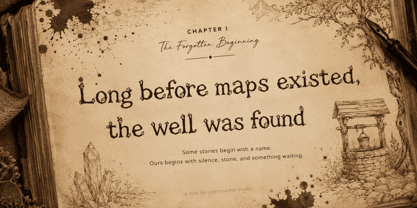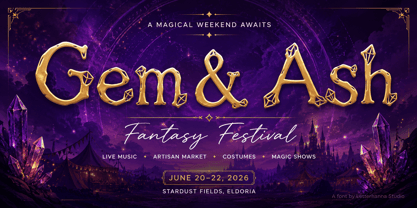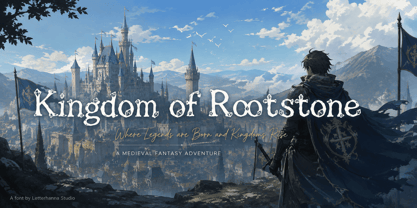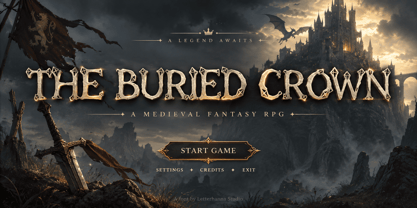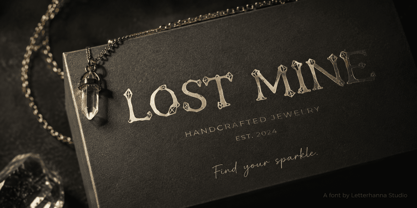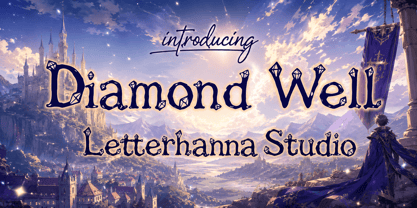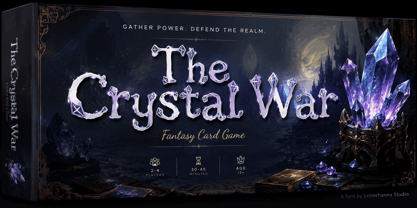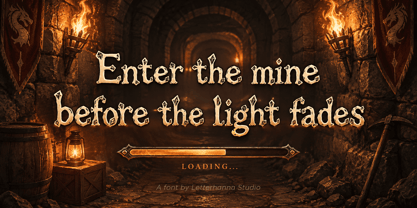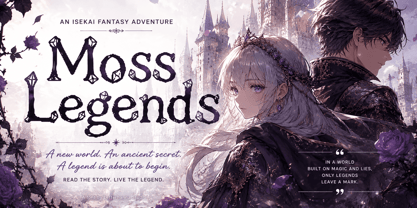
Every designer knows the frustration: you need a fantasy font, but everything available online looks identical — the same swirly serifs, the same generic sparkle clip art. That repetitive sameness is the pain point that pushes creative projects toward looking flat and forgettable.
Diamond Well was made to break that cycle. It's a hand-inked display typeface where every letter carries rough, sketchy outlines, like something scratched into an old leather-bound spellbook. Small faceted gem shapes cling to the tips of ascenders and dots, turning simple letterforms into tiny crystal sculptures.
The first time you see it, there's a moment of confusion — is this a crystal font, a gem font, or a magic font? Diamond Well doesn't sit neatly in one box. It blends rustic, storybook texture with sharp mineral detailing, creating something that feels handcrafted and otherworldly at the same time.
That blend is the mindblowing twist. Instead of picking between "cute and folksy" or "mystical and elegant," Diamond Well delivers both. The rough double-stroke lettering nods to woodcut illustrations and old fantasy maps, while the crystal accents pull the design toward something magical, almost ritualistic.
Many designers struggle with fantasy fonts that feel either too childish or too stiff and formal. Diamond Well resolves that confusion by sitting right in the middle — playful enough for storybooks and games, refined enough for jewelry branding or premium packaging design.
What really sets it apart is the storytelling built into the letterforms. Every gem detail suggests treasure pulled from somewhere deep and secret, like a diamond well hidden beneath ancient stone. That narrative makes it perfect for fantasy novel covers, RPG branding, witchy product lines, or any concept rooted in magic and discovery.
If your past attempts at a "fantasy font" ended up looking like everyone else's, Diamond Well offers a real alternative — a typeface with texture, mystery, and craftsmanship baked directly into its design.